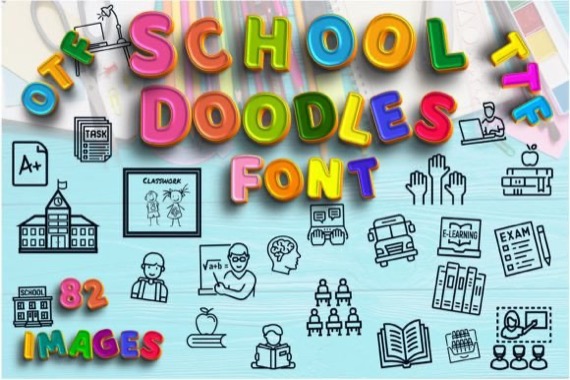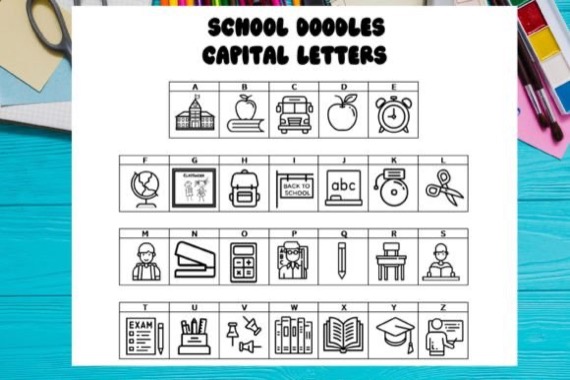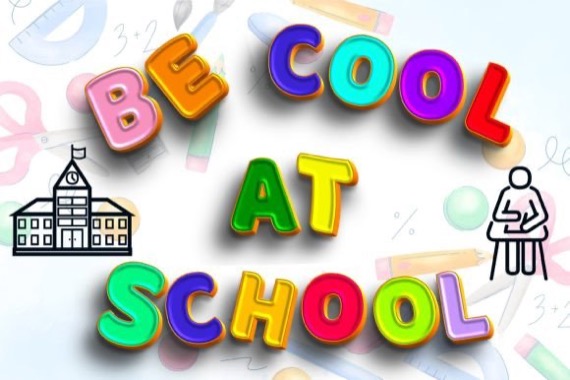
School Doodles Font is a chic and fun symbols typeface from Mary Kay’s Magic. This doodle/dingbat font is for teachers, administrators, parents, students, aides, counselors, or anyone else involved in school activities.
Use these doodles to enliven educational projects: cards, posters, planners, journals, assignments, social media posts, or tests. With so many images, you can let your imagination can run wild.
School Doodles Dingbats Font